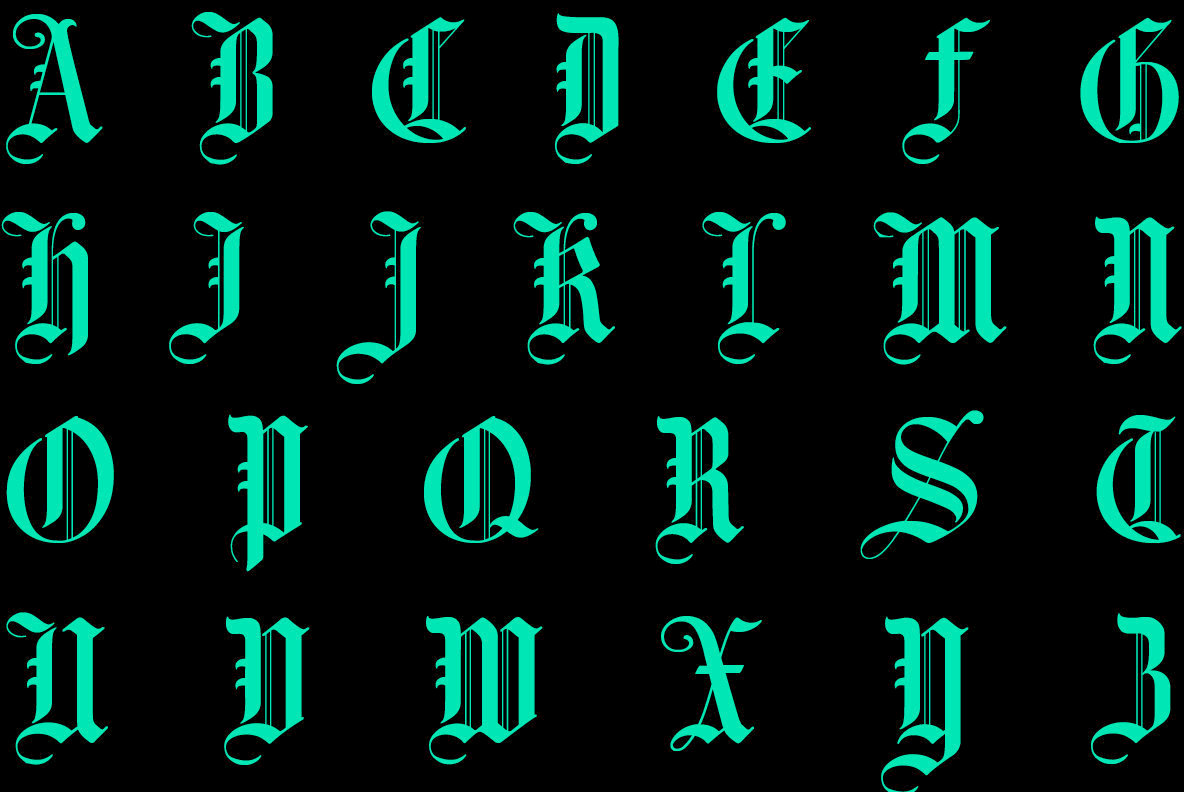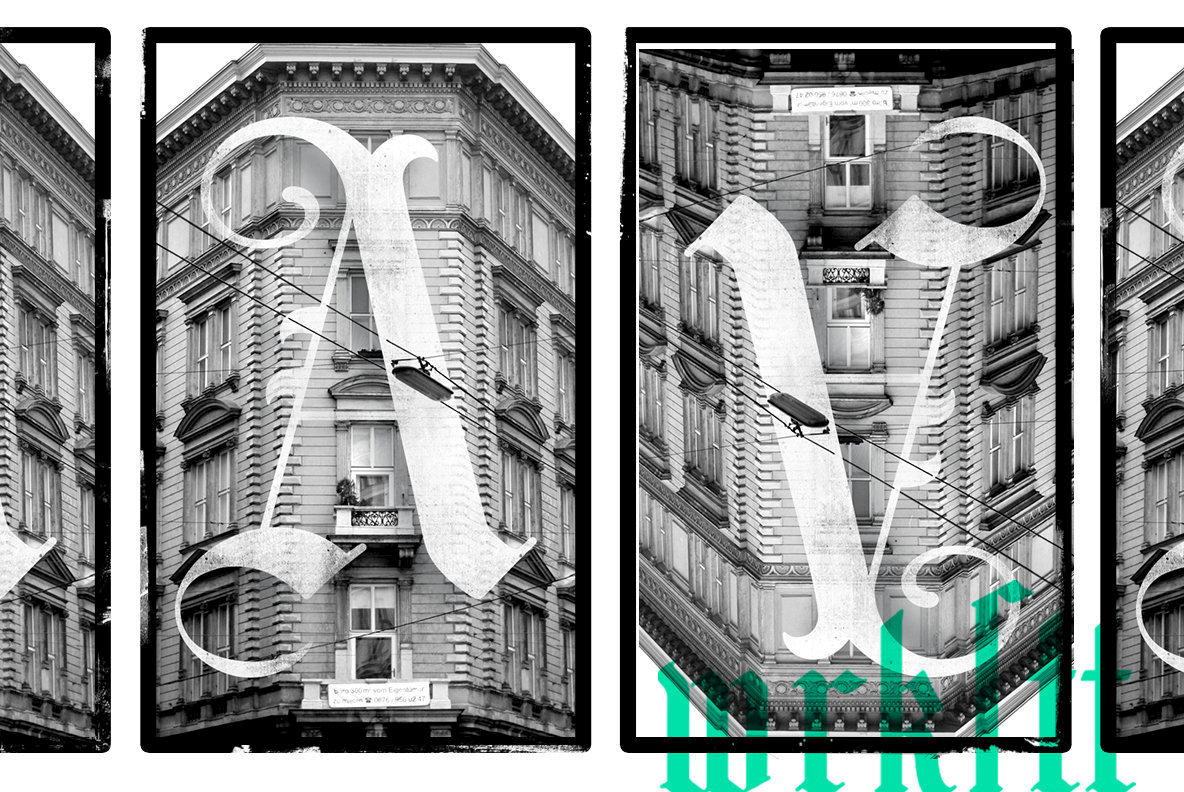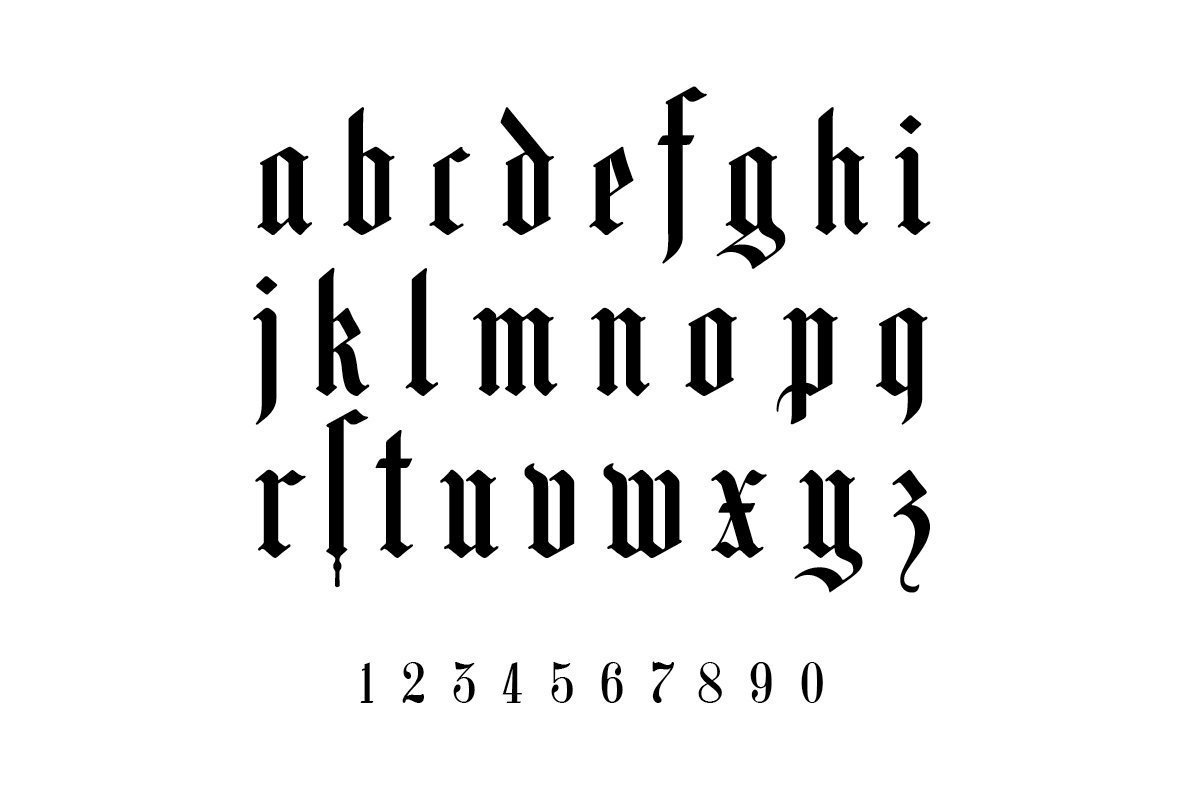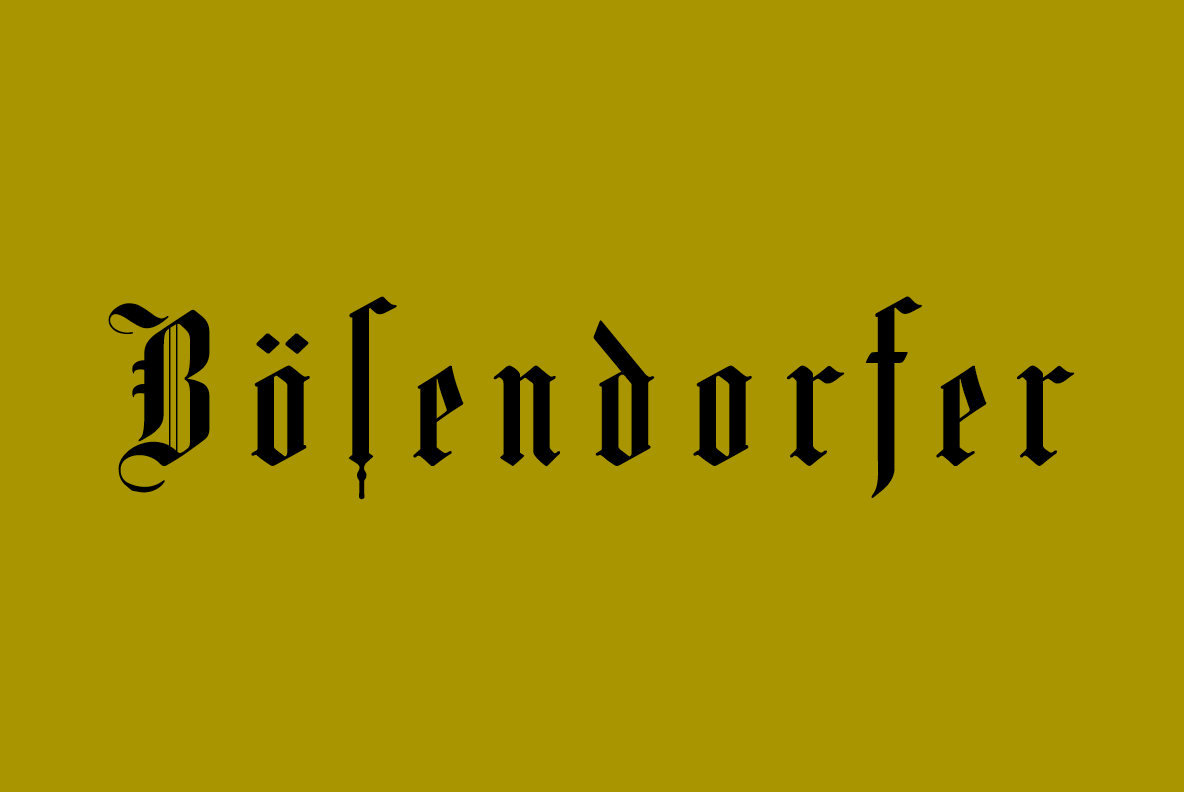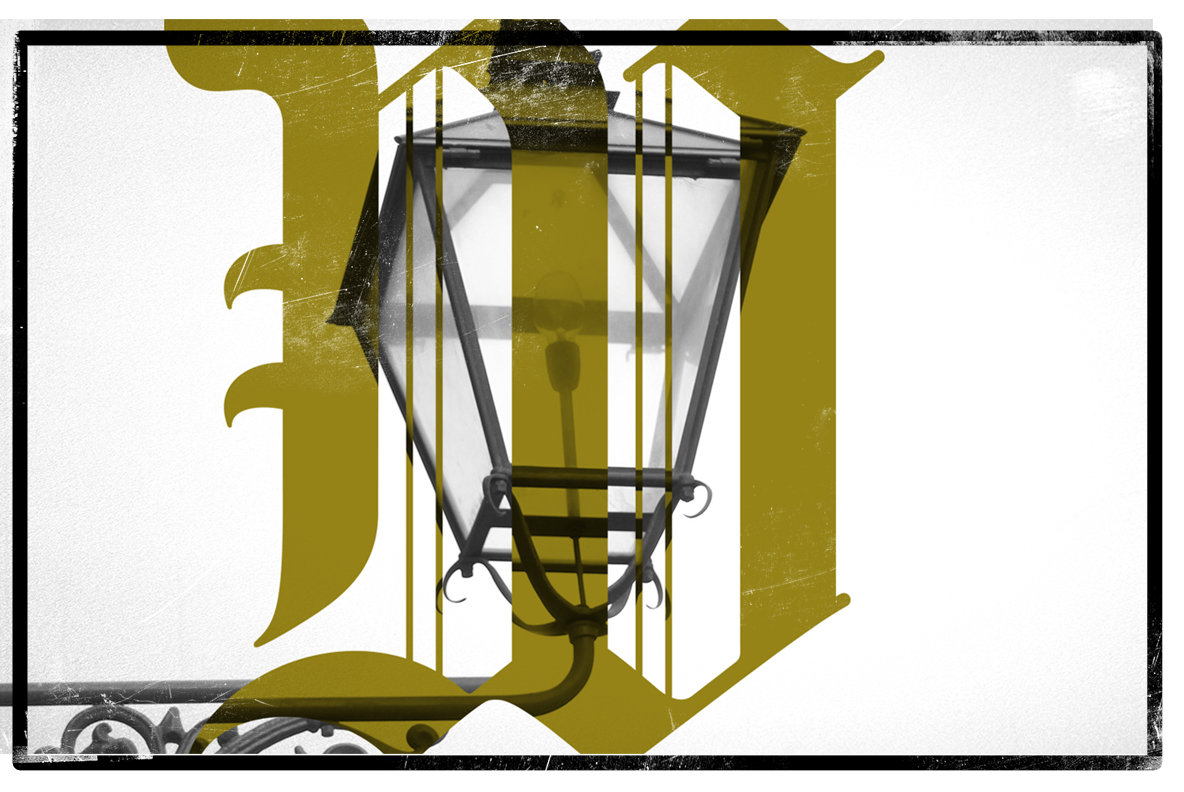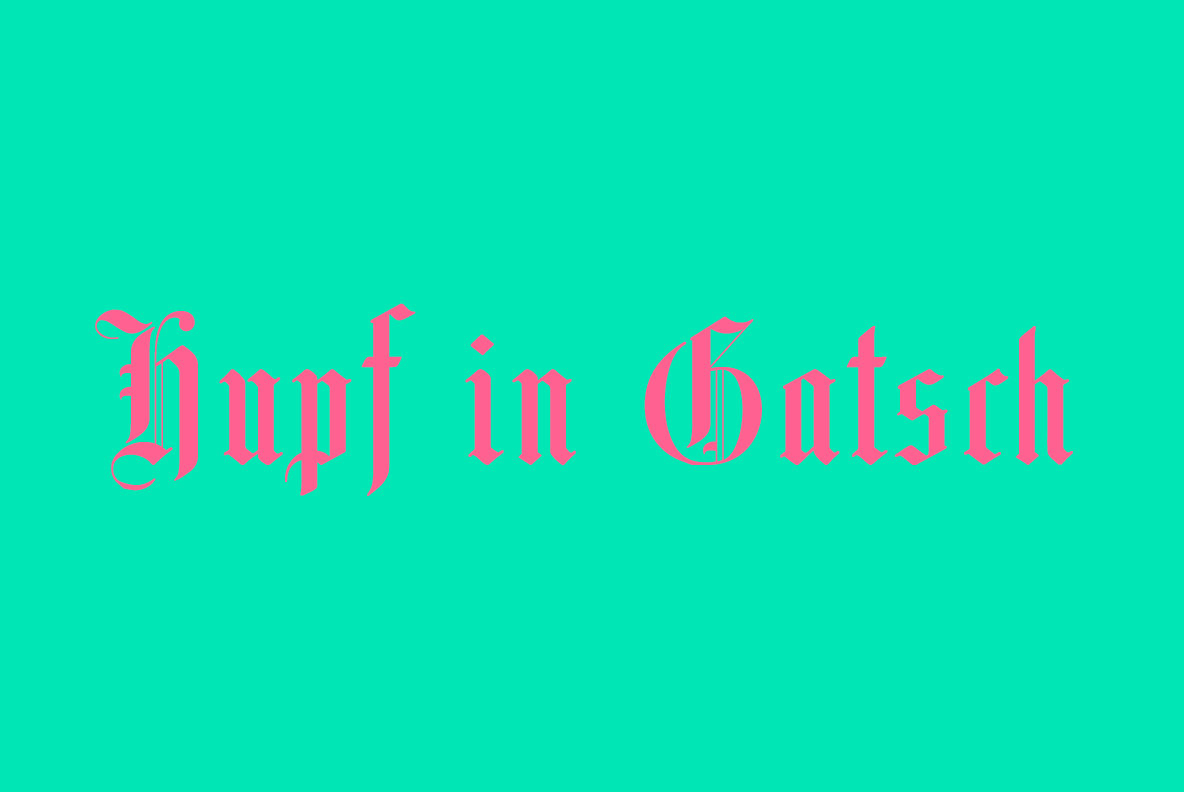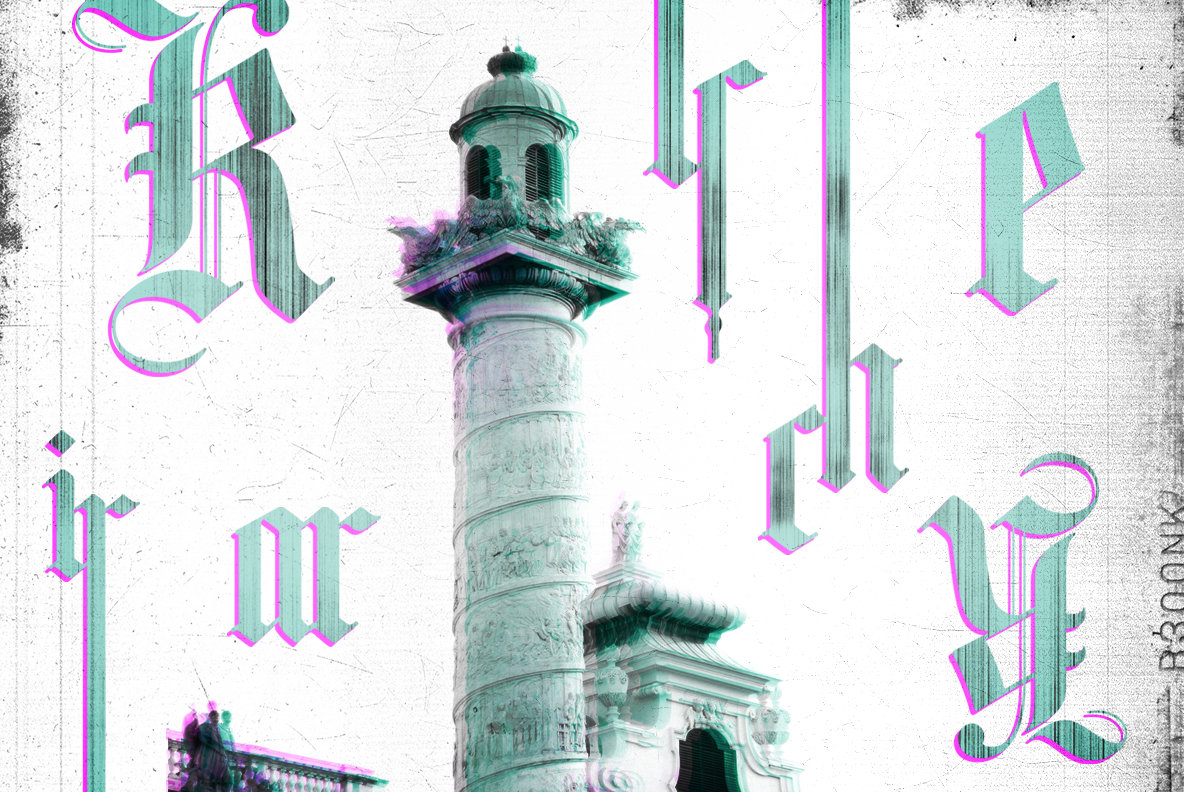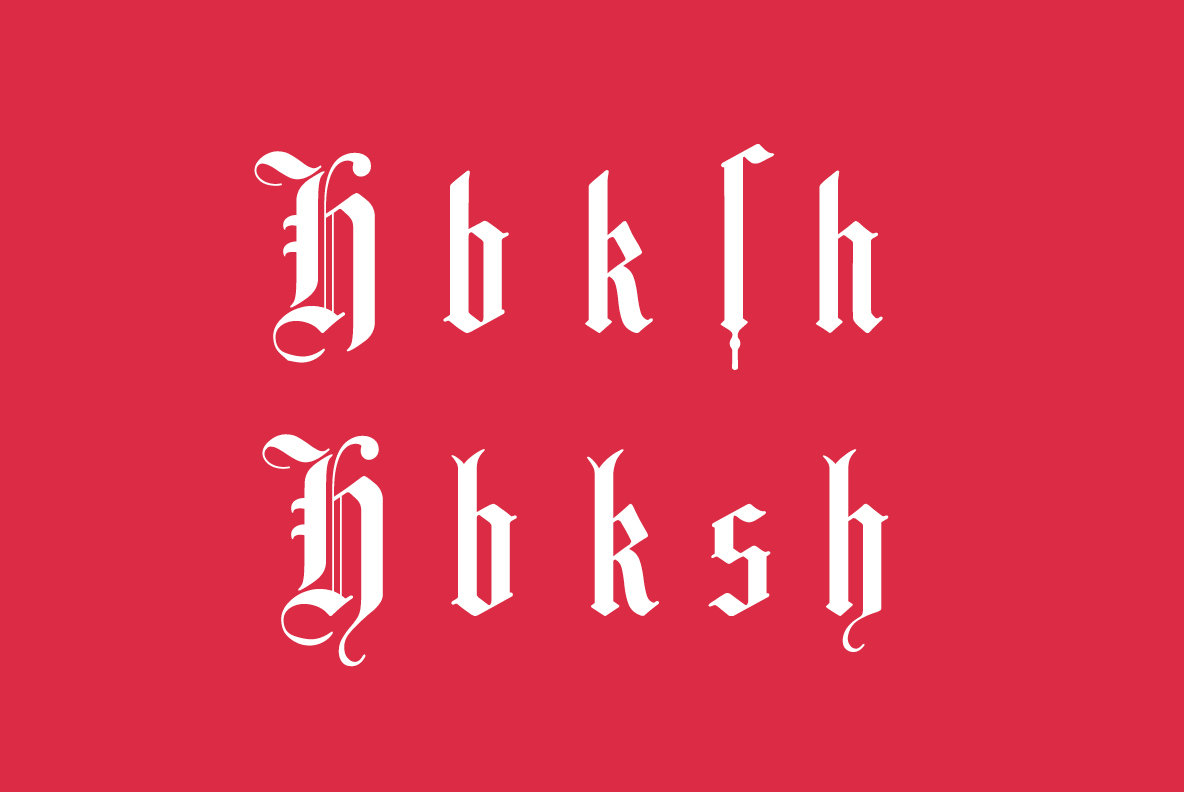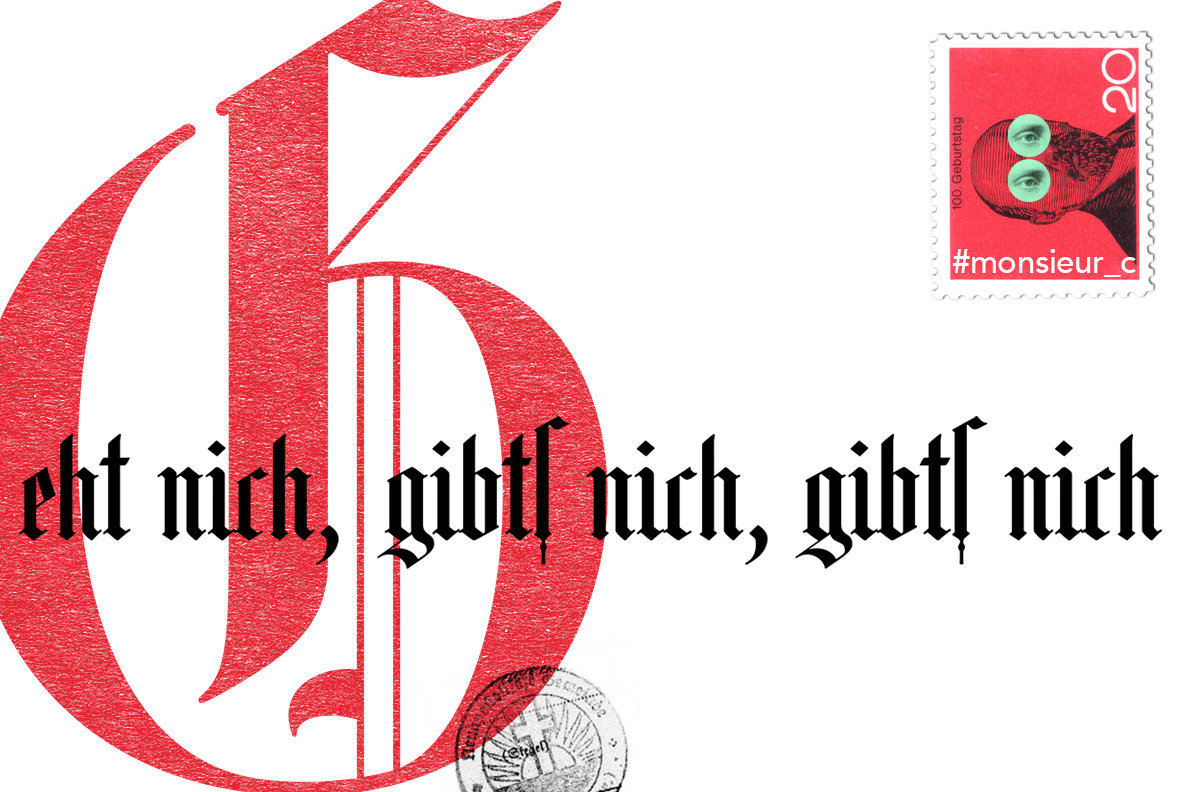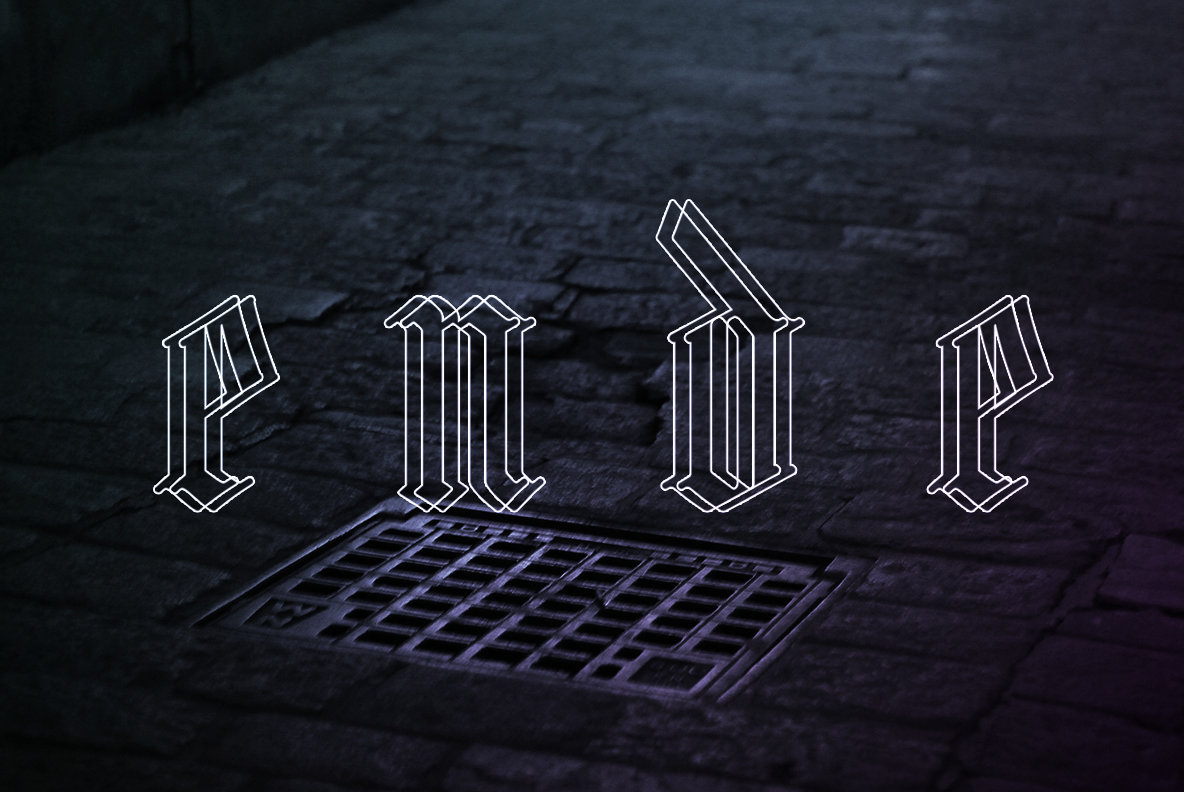
Altwien Font
Altwien Regular
Altwien is a blackletter display typeface that draws inspiration from the historic street signs of Vienna and Salzburg. Its clear and simplistic condensed design offers a modern take on a traditional style, presenting a unique aesthetic when used in contemporary contexts.Altwien: Blackletter Display with a Viennese Flair